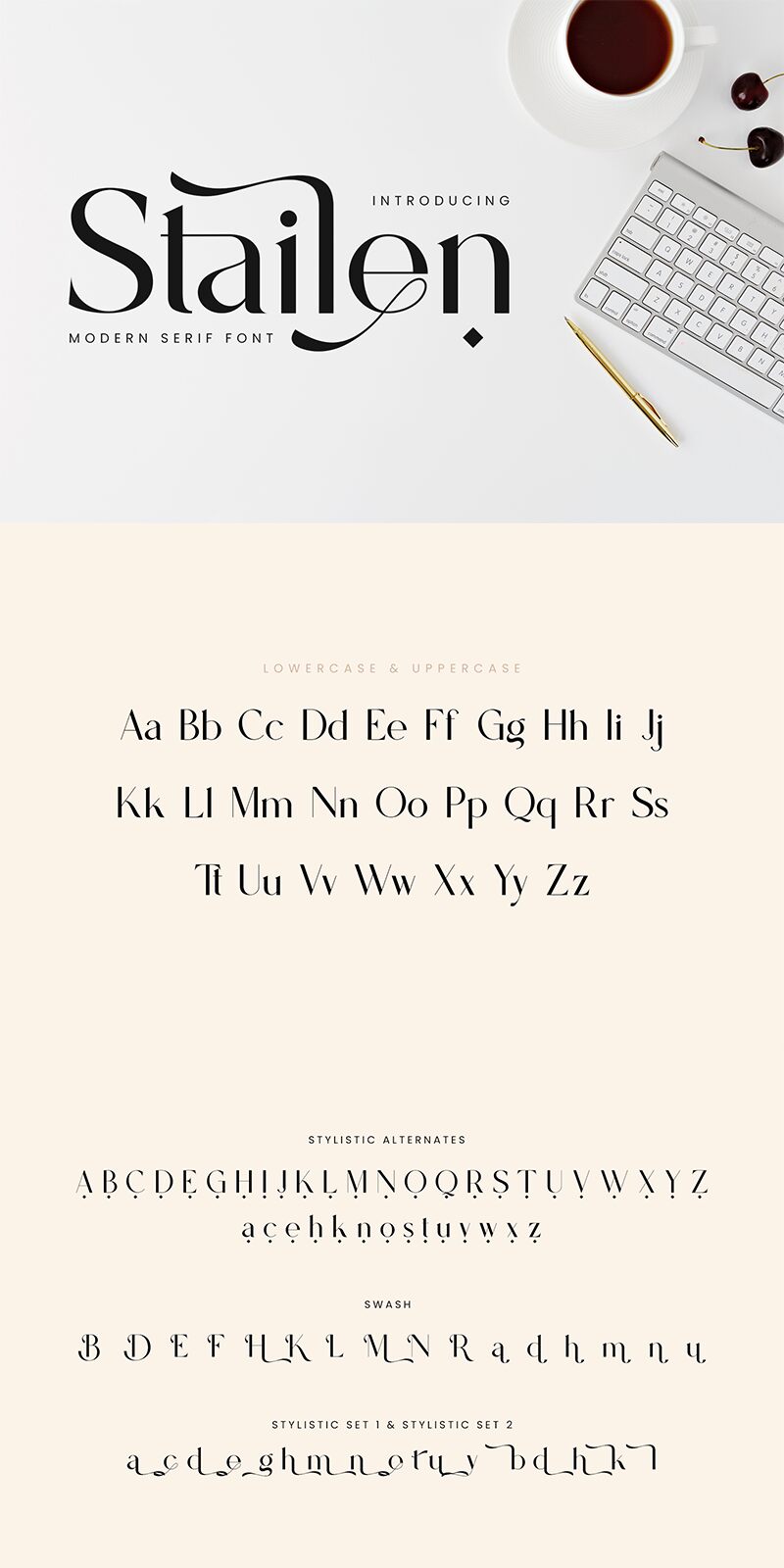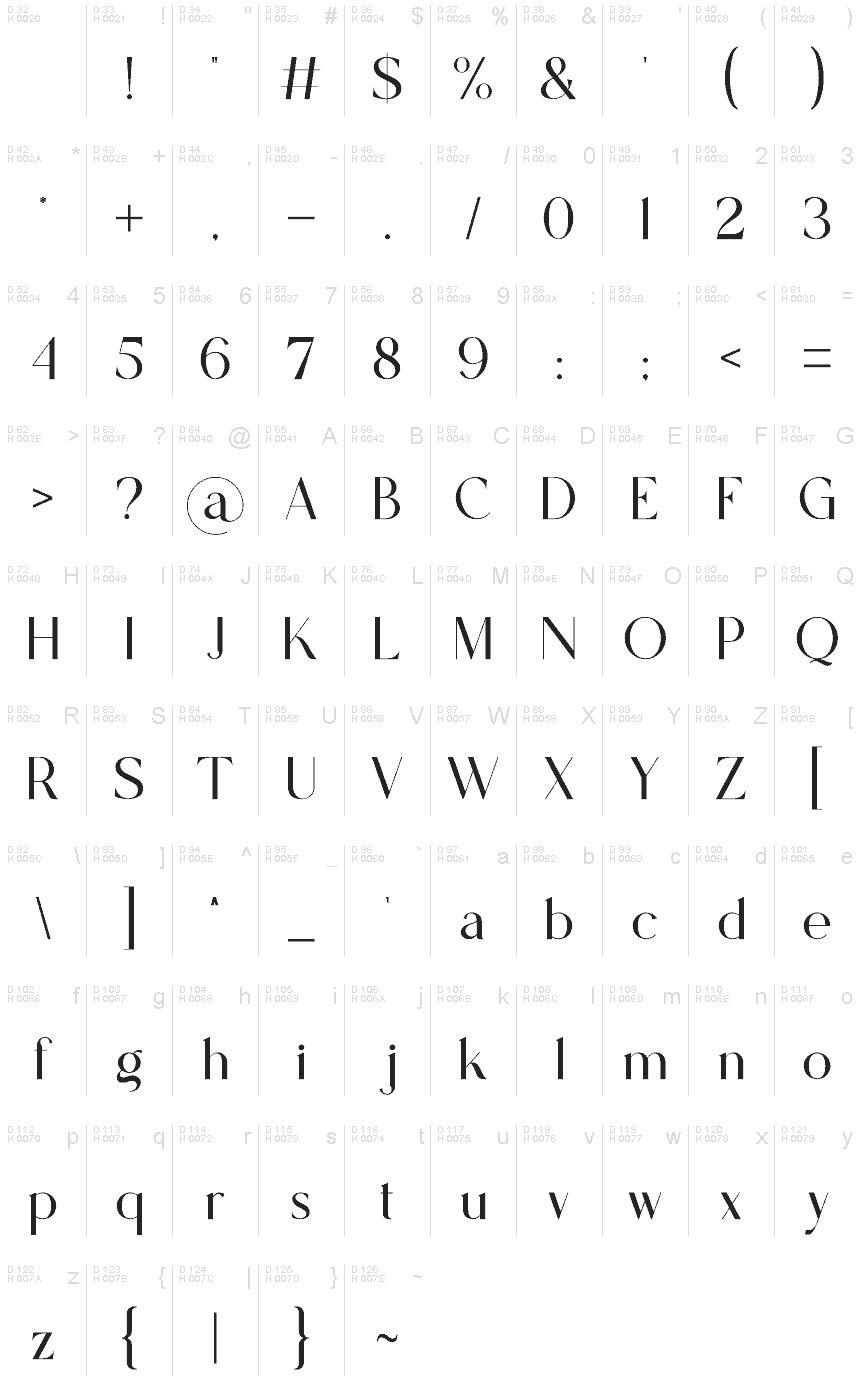
Stailen
Stailen font by Ahmad Riqi embodies elegance and sophistication in every letter. This free serif font was inspired by classic influences which make it neither modern nor traditional, but rather timeless. Stailen speaks with formal yet friendly tones to achieve authoritative and appropriate messages for stress-free audience engagement. It offers the professional presence needed to enhance any project.
Use this font for logos, advertisements, flyers, websites, mobile apps, brochures, headings in magazines or newspapers. Use Stailen on juice labels and restaurant menus as well typography-driven packages including boxes and bags to reach outstanding visual content that consumers will not forget anytime soon!